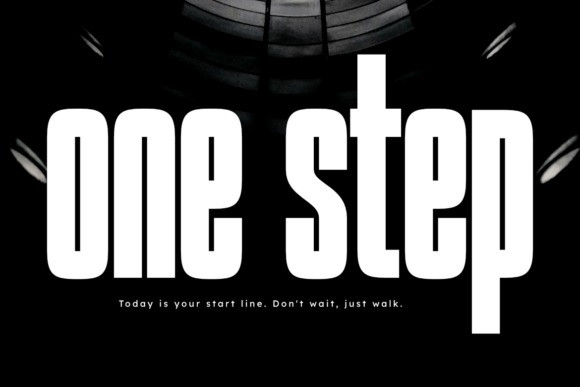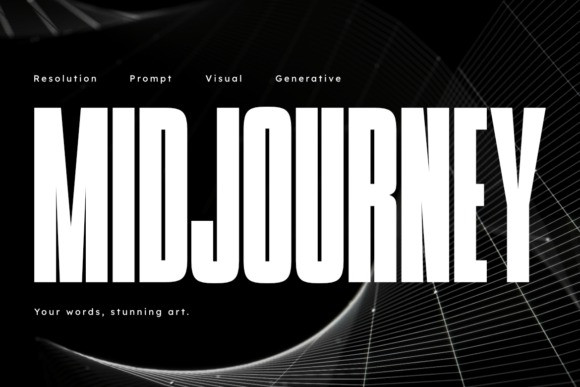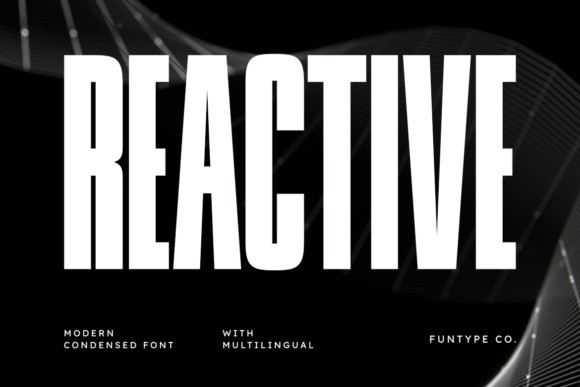
Reactive Font
Reactive Font is a dynamic, assertive, modern condensed display font designed to evoke speed and energy.Its tall, streamlined form and clean lines offer a versatile aesthetic, making it excellent for sports graphics, e-sports branding, impactful headlines, fashion editorials, and modern poster design.
Reactive is a highly professional and effective typeface that includes extensive multilingual support, ensuring global utility for projects demanding a contemporary, confident, and high-impact visual style.